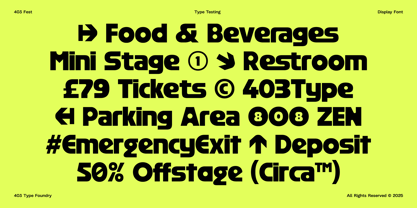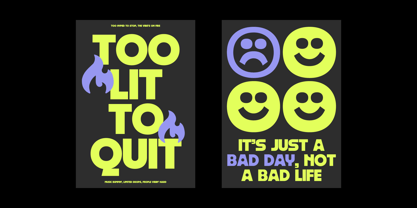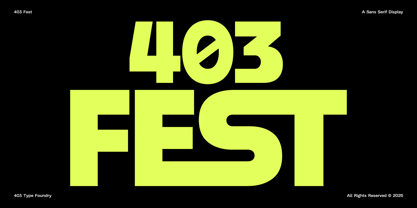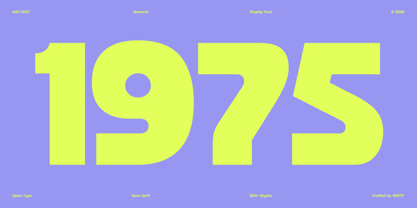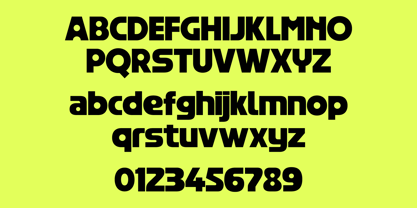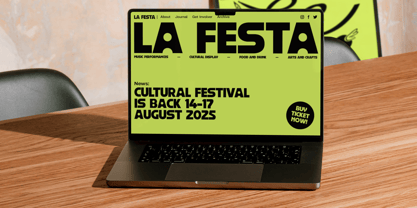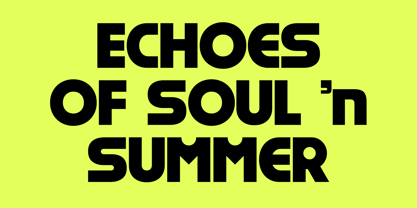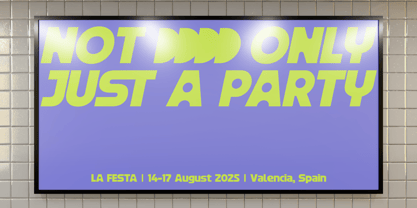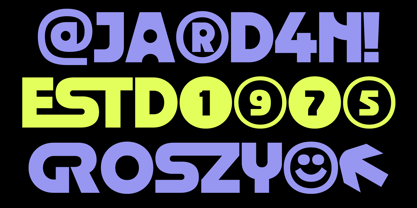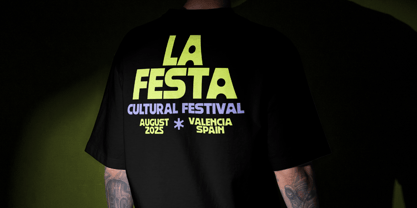
403 FEST
The 403 FEST Font Family was designed by Umar Al Farouq, Jodi El Ghazi, Febri Riansah and published by 403TF. 403 FEST contains 2 styles and family package options. More about this family
Step into the mainstage energy of 403 Fest, the ultra bold display font designed to make your brand impossible to ignore. From festival branding and social media takeovers to statement making merch, 403 Fest delivers an electrifying combination of raw power and playful personality. It's built to be the life of the party, giving you the confidence to craft visuals that are not just seen, but experienced.
At its core, 403 Fest is a masterclass in controlled chaos. Its super bold, geometric structure provides a solid, reliable foundation, while its soft corners, tight apertures, and unique letterforms inject a friendly, human centric feel. But the real magic lies in its expressive potential. Dive into a set of stylistic alternates that transform words into logotypes, giving your designs an instantly custom and edgy feel. Inspired by the vibrant aesthetics of modern music festivals, streetwear culture, and bold public signage, 403 Fest is your go to for conveying pure, unfiltered energy.
403 Fest is the secret weapon for today’s creative trailblazers. It’s built for graphic designers branding the next big event, marketers launching high impact ad campaigns, and content creators crafting viral social media posts. Its clarity at scale makes it perfect for everything from massive posters and food vendor menus to event wristbands and directional signage. Whether you’re designing apparel, packaging, a website hero section, or a mobile app interface, 403 Fest provides the versatility to be both your headline act and your supporting cast.
Key Features:
• Stylistic Alternates
• Two dynamic styles regular and slanted
• Massive 500+ Glyph Set
• Support for 277 languages
• Features uppercase, lowercase, numerals, and extensive punctuation for any design scenario